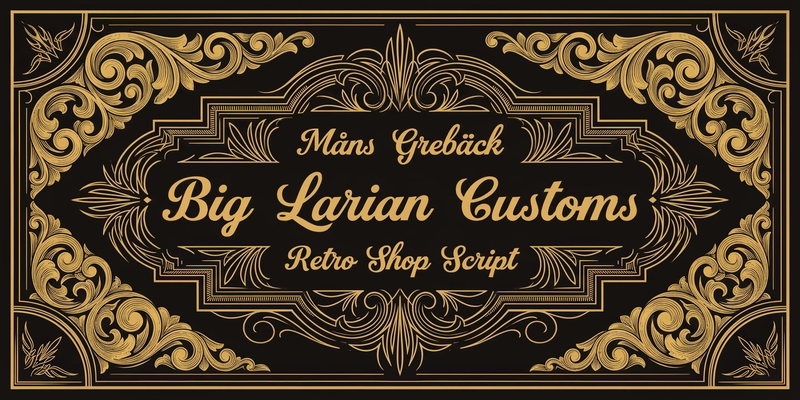
Big Larian Customs
NOTE: This font is for PERSONAL USE ONLY! To purchase a commercial license, visit: https://www.mansgreback.com/product/big-larian-customs Big Larian Customs is a bold, retro script with the confident swing of a hand-painted shop sign. Thick connected strokes and a lively forward lean give it a vintage Americana energy — equally at home on a hot-rod fuel tank, a diner window, or a craft-soda label. For questions, please visit https://mansgreback.com/faq